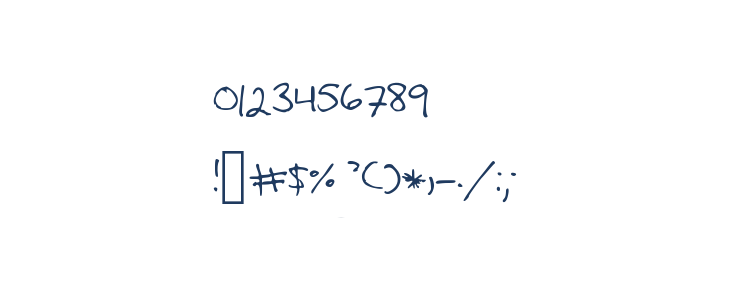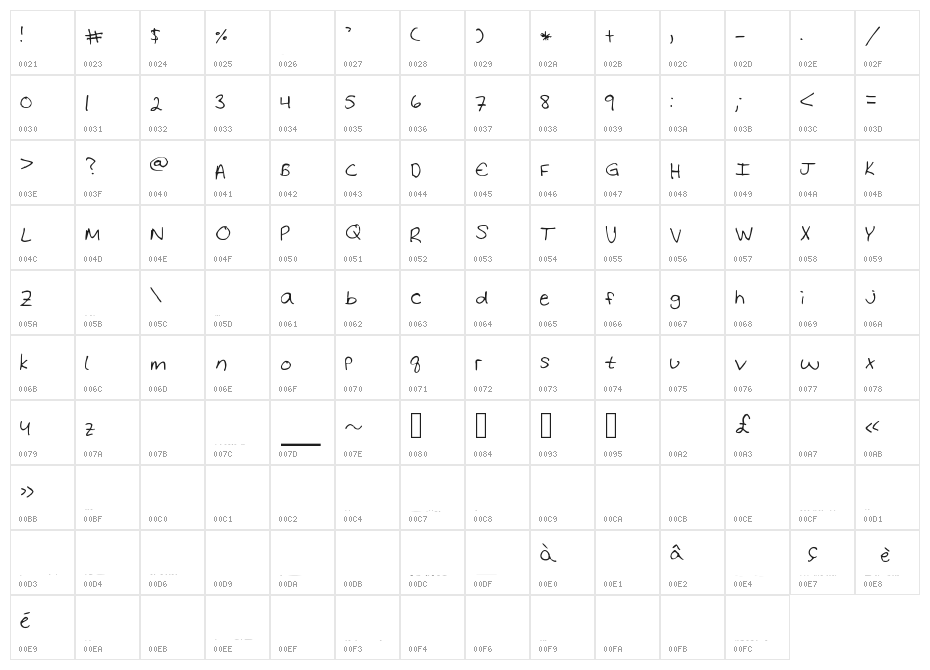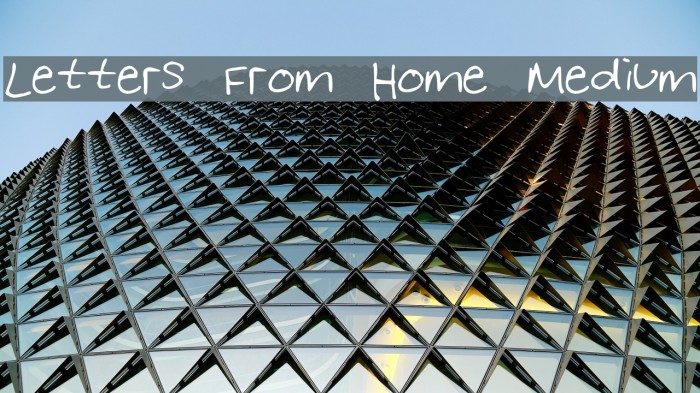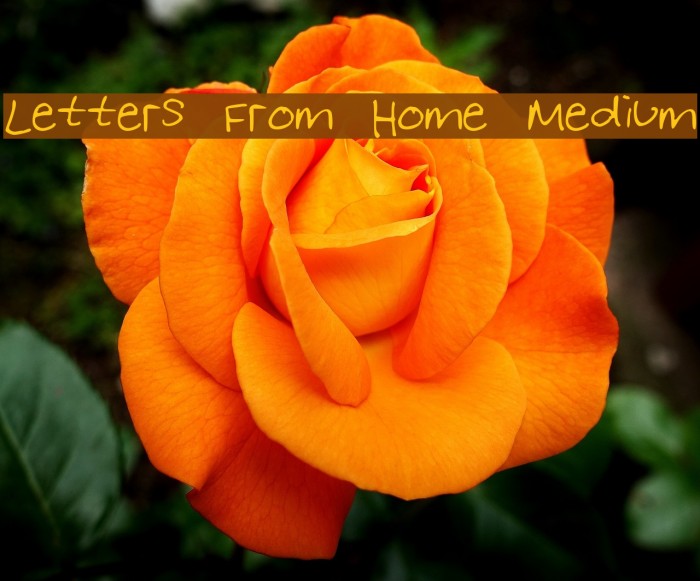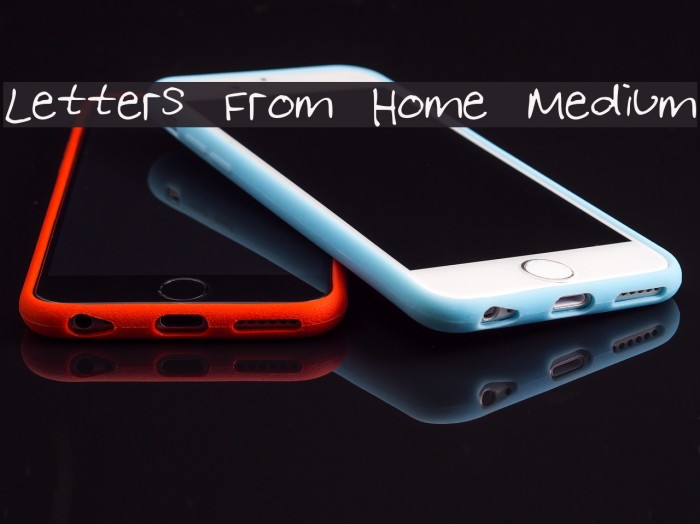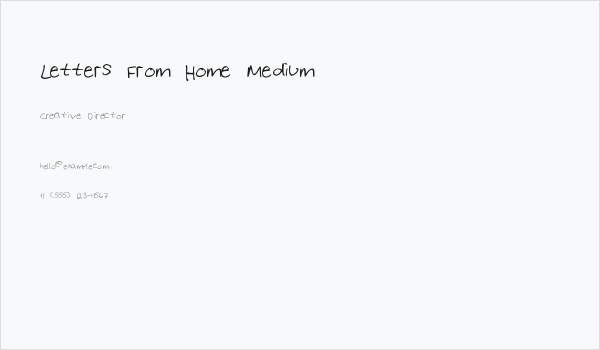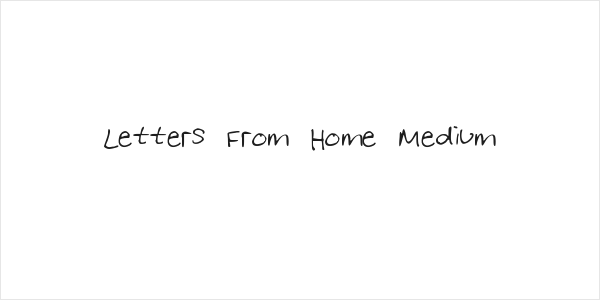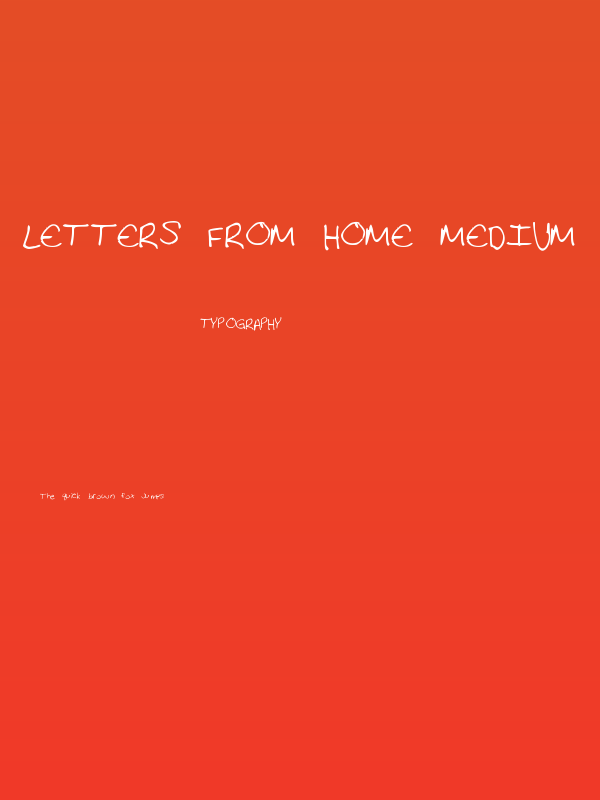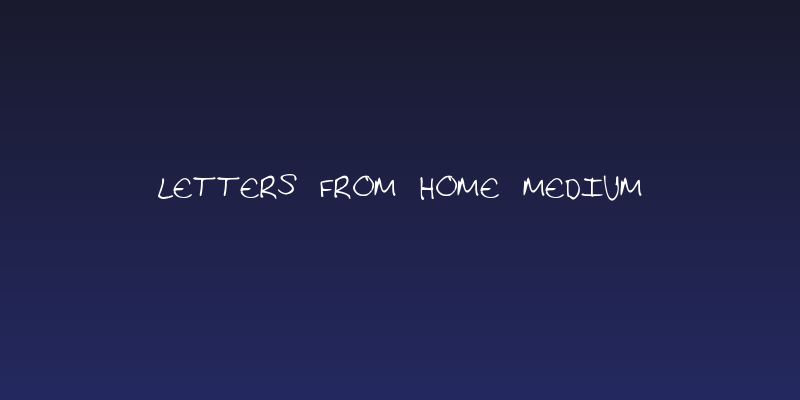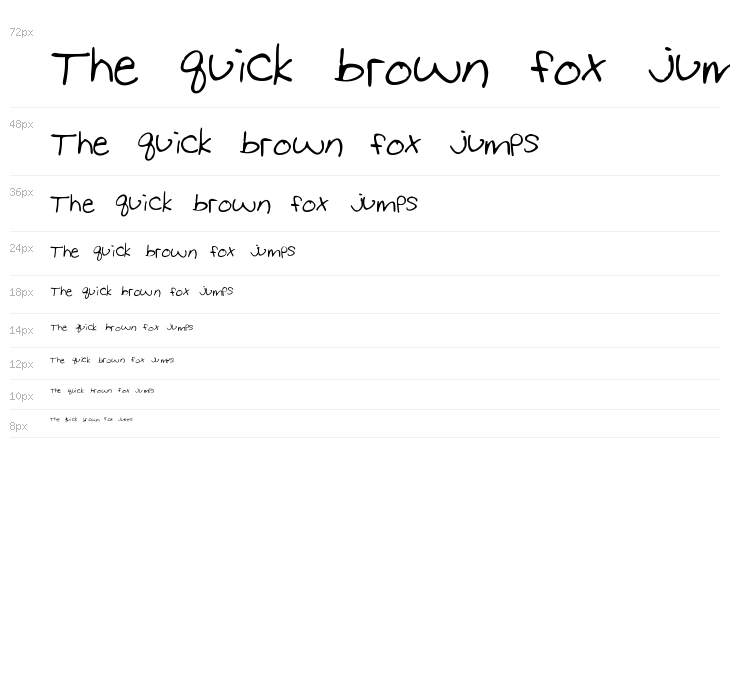
Letters From Home Medium Font
Letters From Home Medium Description
This font exudes a playful and casual handwritten style, characterized by its irregular strokes and informal appearance. The letters are slightly slanted, giving a sense of movement and spontaneity. The uppercase and lowercase letters maintain a consistent flow, with rounded edges and a friendly demeanor. The numbers and special characters follow the same informal style, making it suitable for projects that require a personal touch. The overall design is approachable and warm, perfect for conveying a sense of friendliness and creativity.
| Proposed Projects | Ideal for greeting cards, personal letters, children's books, and creative projects that require a warm, personal touch. |